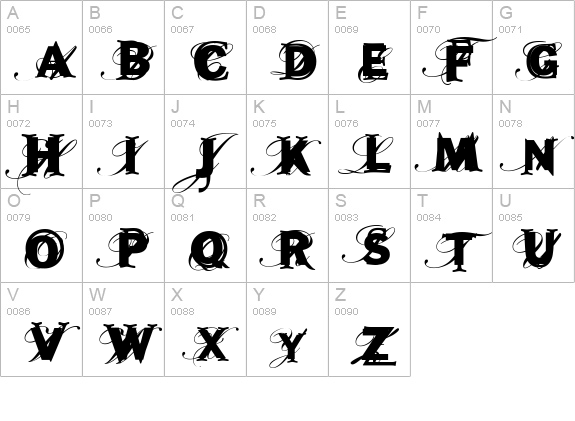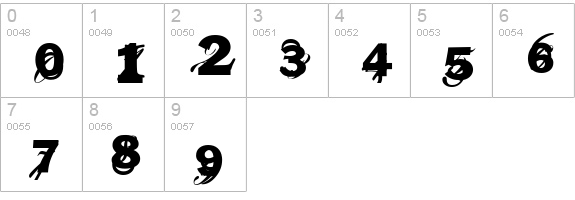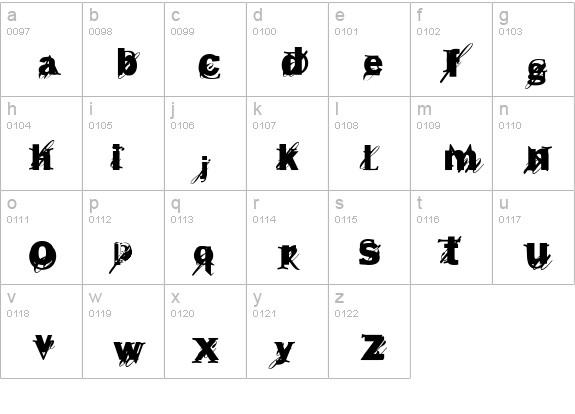
Beast Font Details
The Beast font is a bold and powerful typeface that exudes strength and confidence. With its sharp angles and striking design, this font is perfect for making a statement in any project. The Beast font is not only visually impactful, but also versatile enough to be used in a variety of design applications. Whether you're creating a logo, poster, or website, the Beast font is sure to leave a lasting impression. Best of all, the Beast font is available for free download at FontsMarket.com. This means you can add this dynamic font to your collection without breaking the bank. Don't miss out on the opportunity to enhance your designs with the striking beauty of the Beast font. Download it now and unleash your creativity!